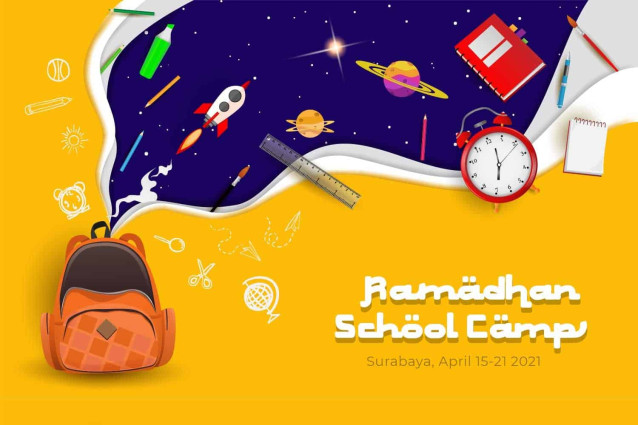
Funabic Font
Funabic Font is an arab faux typeface with fun typeface, Funabic is a unique, arabic styled display font. It is PUA encoded which means you can access all of the glyphs and swashes with ease! Add it confidently to your favorite creations and let yourself be amazed by the outcome generated.